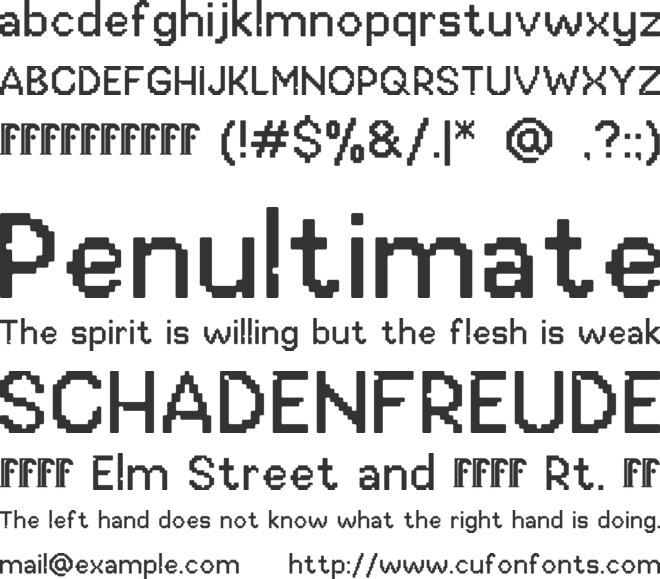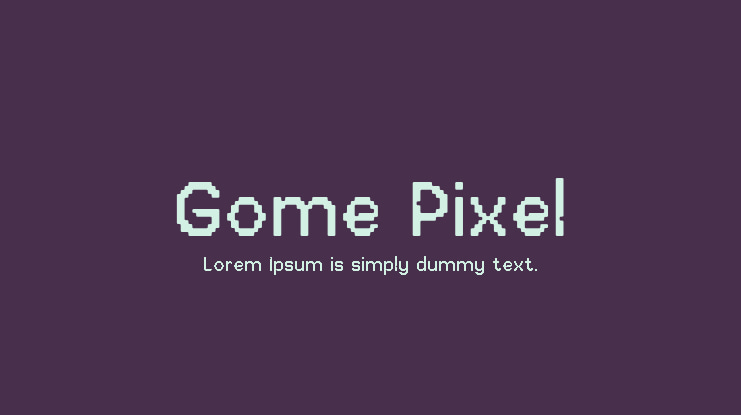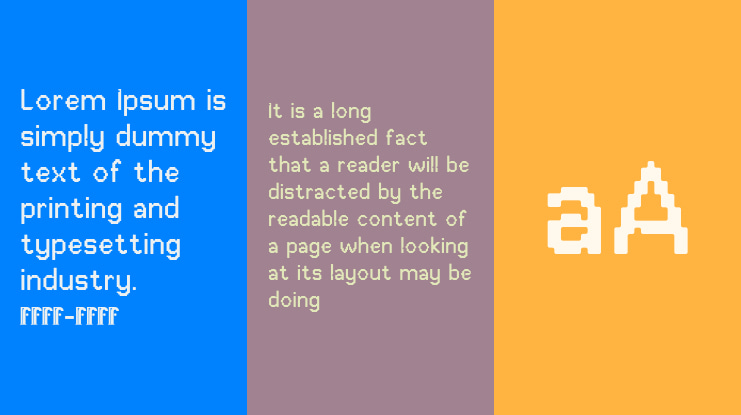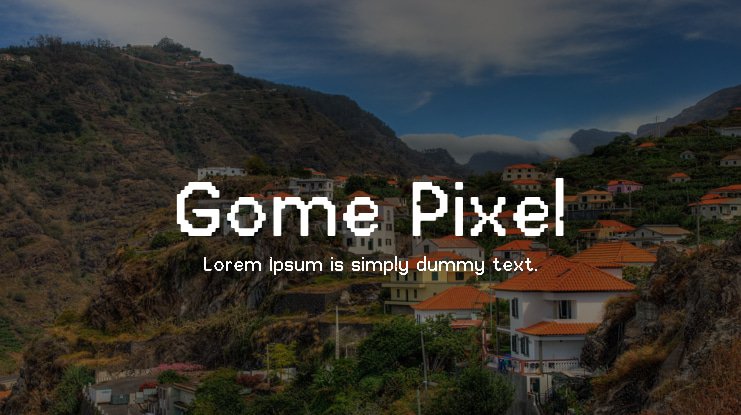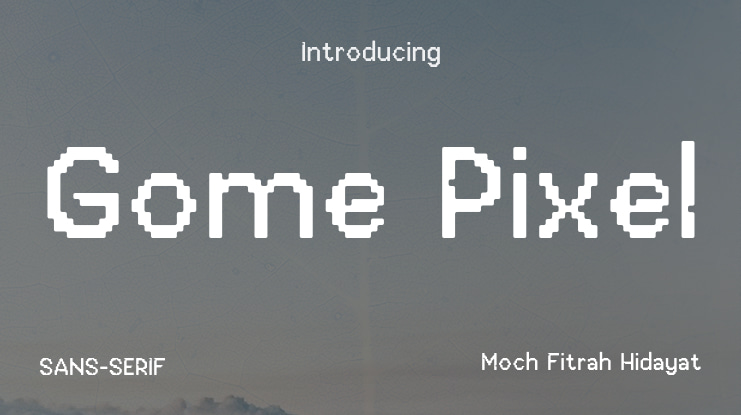
Gome Pixel Font
Moch Fitrah Hidayat
Gome Pixel is designed with a focus on display purposes. It includes both uppercase and lowercase characters, making it ideal for retro game designs and computing themes. Inspired by bitmap fonts, Gome Pixel adds a nostalgic touch to your projects.